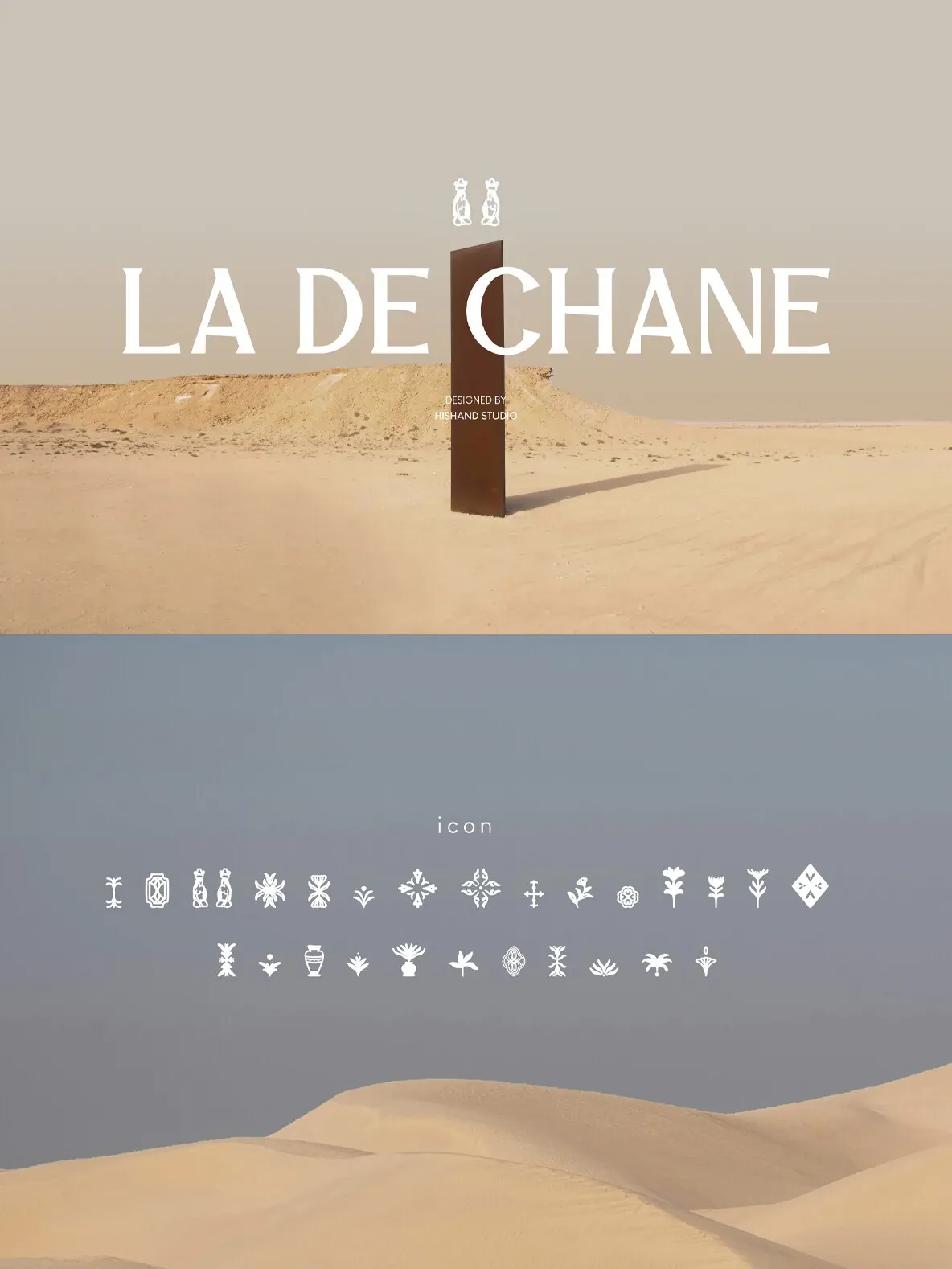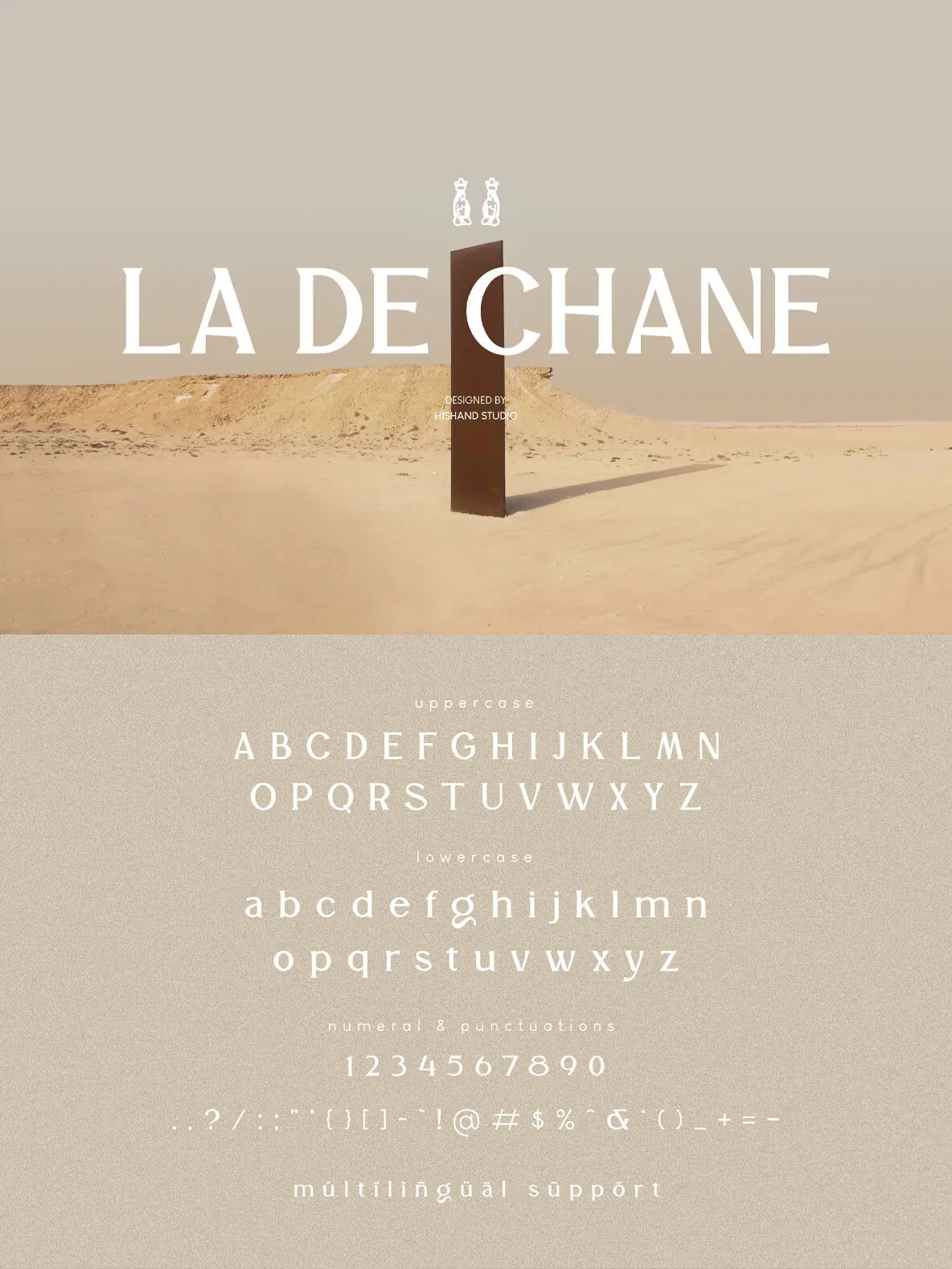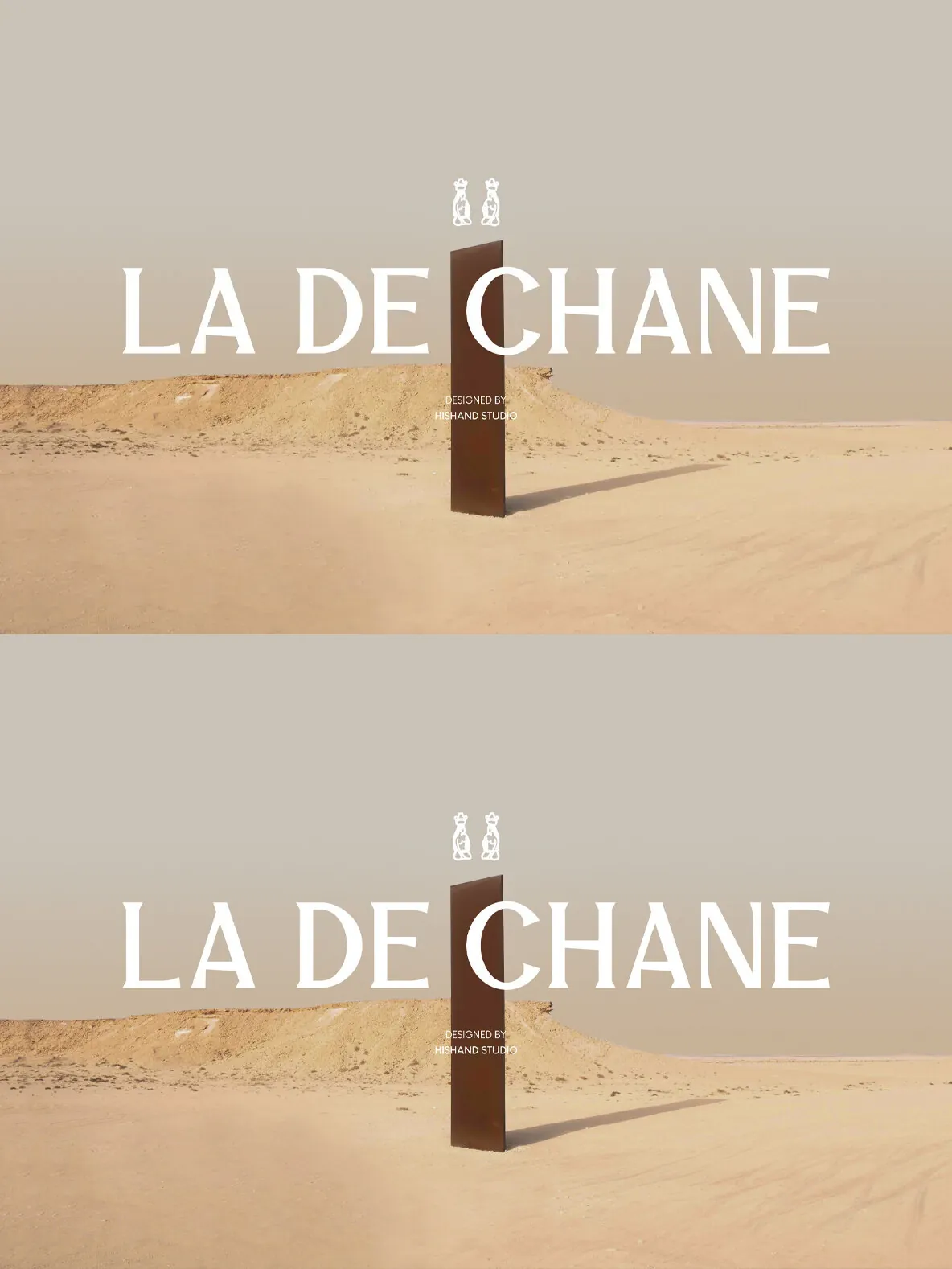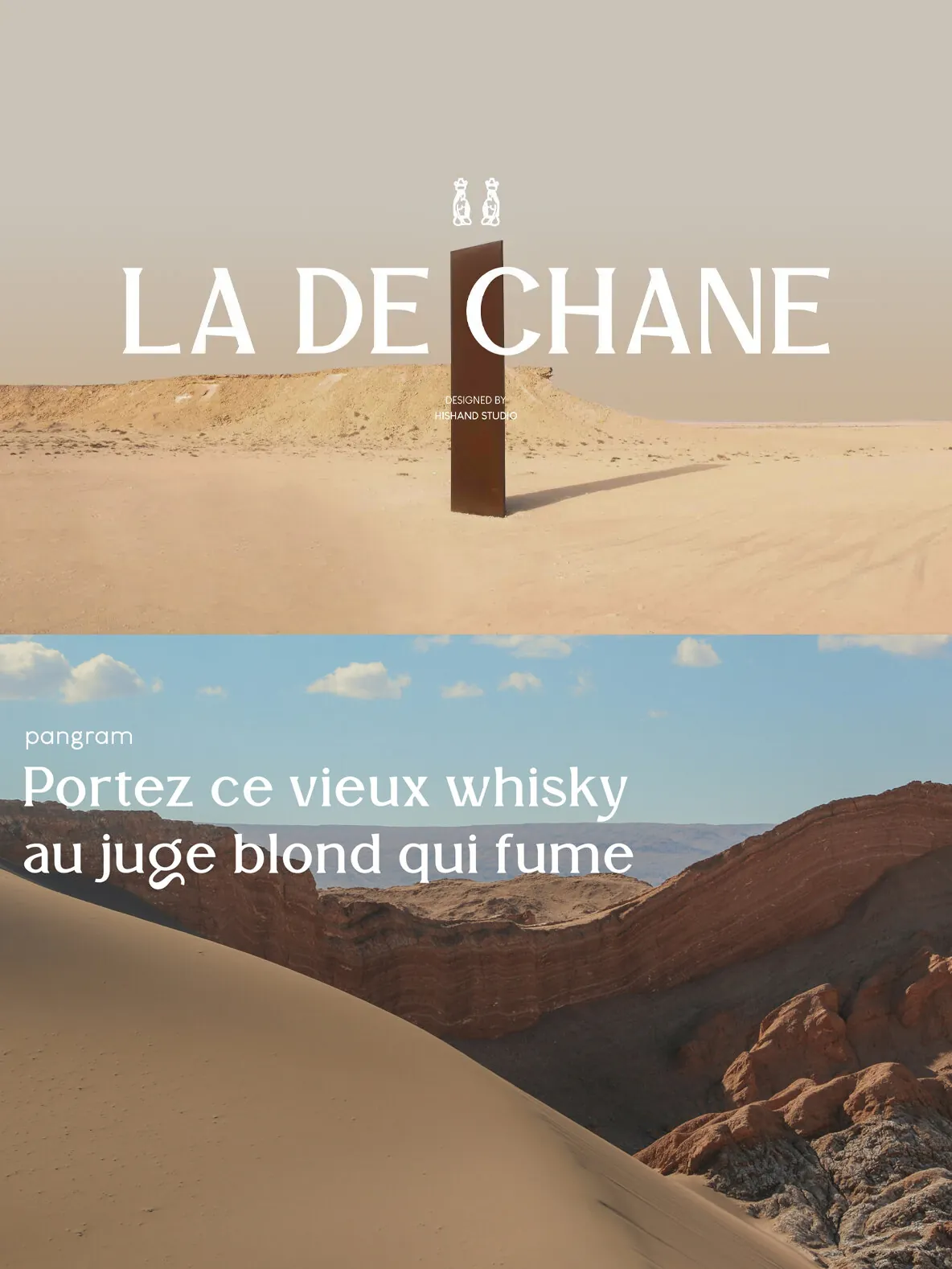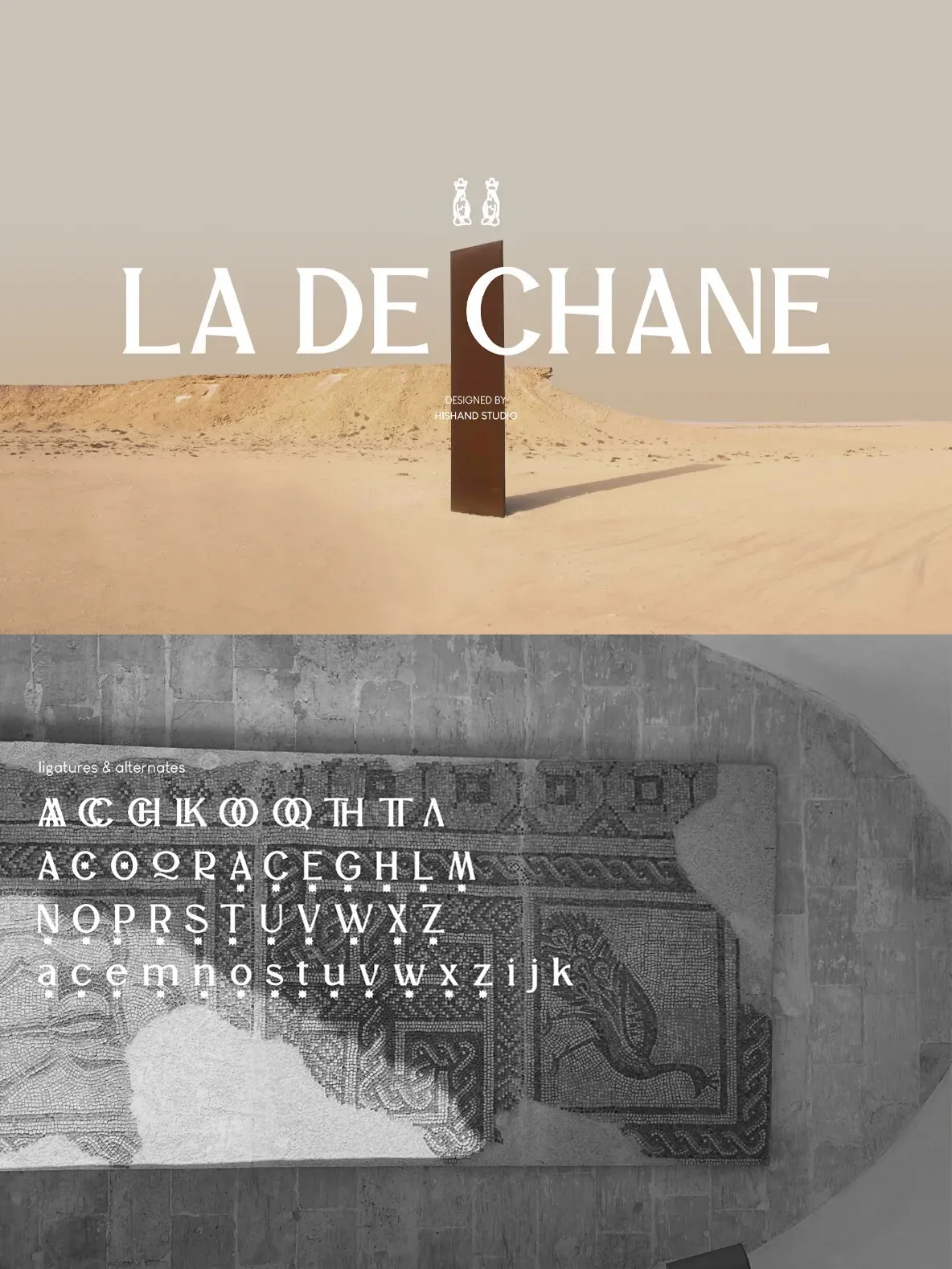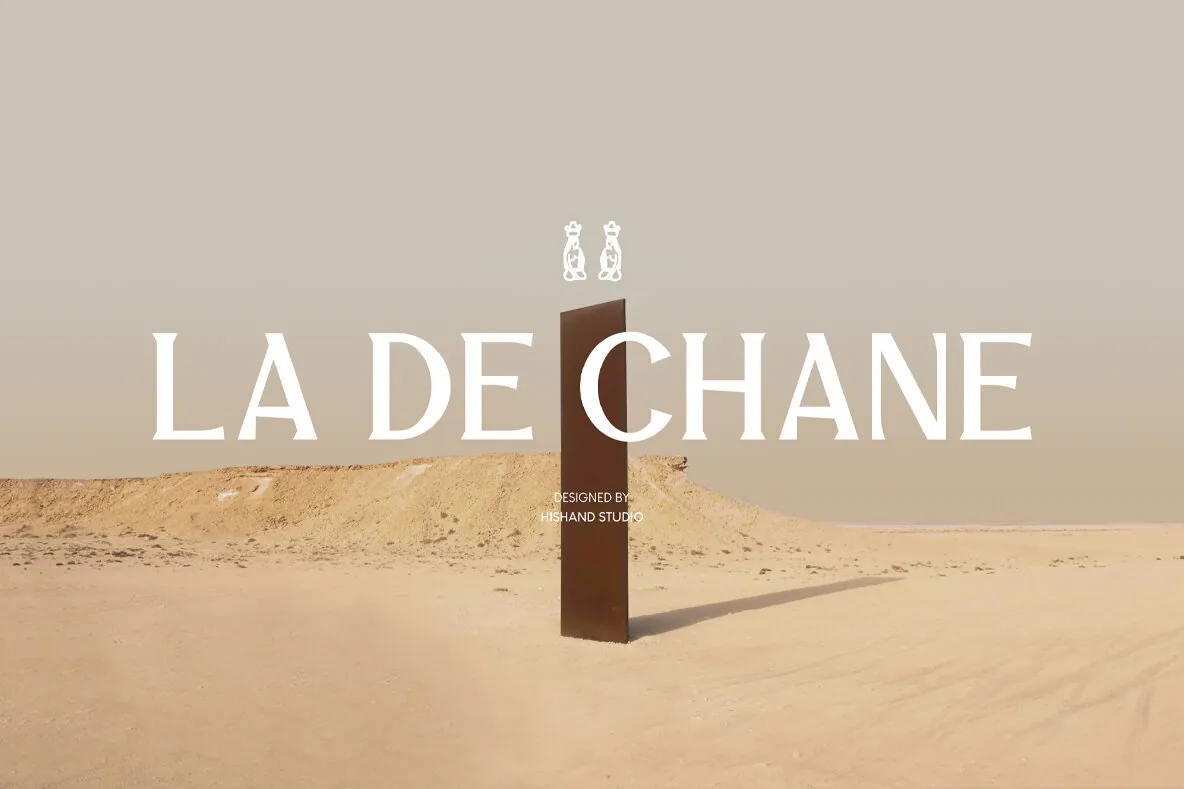
LA DE CHANE — Serif Poise for Luxury
LA DE CHANE is a distinguished serif typeface that brings classic sophistication together with contemporary design. Its high-contrast strokes, refined curves, and precise serifs give each setting a sense of luxury and assurance, while keeping the letterforms clear and composed.
Suited for fashion labels, upscale branding, editorials, and premium packaging, LA DE CHANE holds attention with understated elegance. Each letterform is meticulously designed for style and clarity, making this serif font a strong choice for headlines, elegant logotypes, and refined visual identities.
Ligatures
Alternates
Regular
Italic
Icon
Kerning
Multilingual support